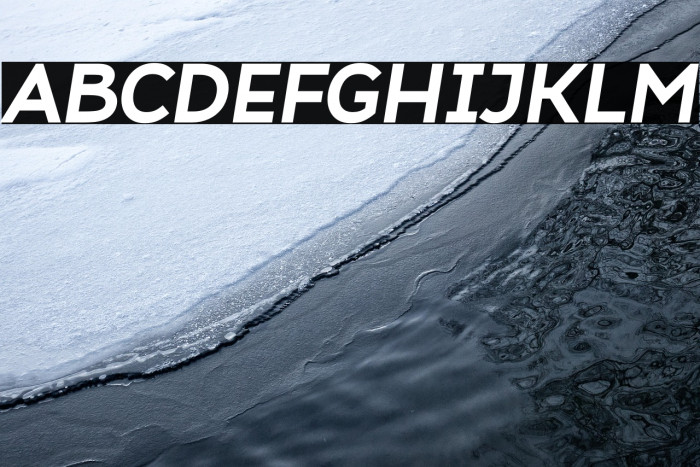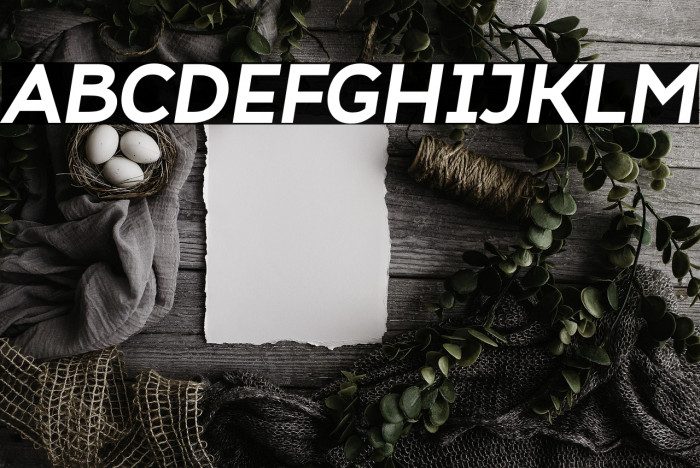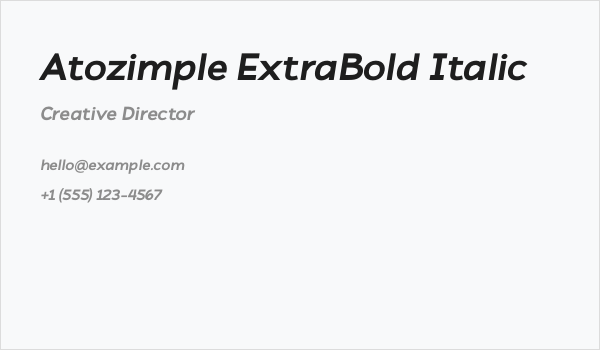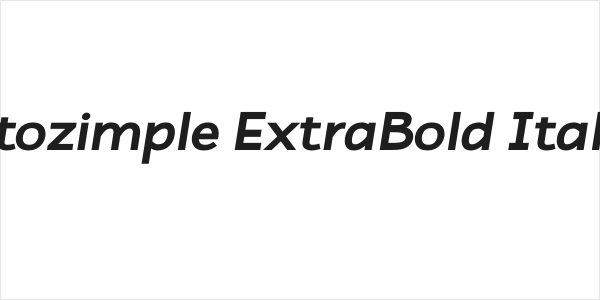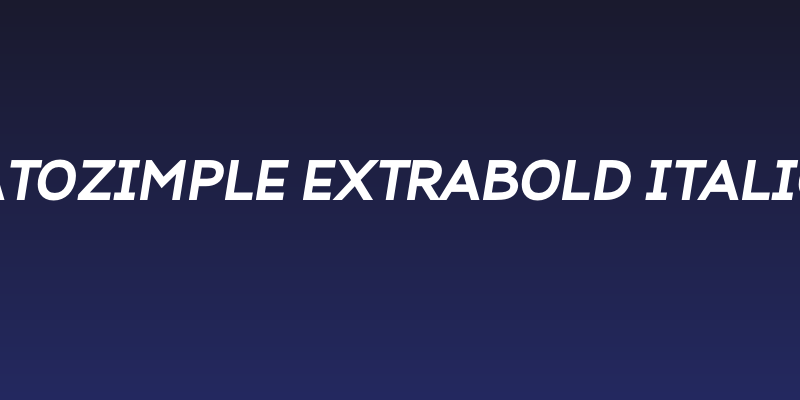
Atozimple ExtraBold Italic Font
Atozimple ExtraBold Italic Description
This font features a bold and dynamic style with a pronounced italic slant, giving it a sense of movement and energy. The characters are well-defined with a consistent stroke weight, making them highly legible. The uppercase and lowercase letters maintain a uniform appearance, while the numerals are clear and easily distinguishable. Special characters are included, enhancing its versatility. The font's design is modern and sleek, suitable for a variety of applications where impact and readability are essential.
| Use Case | Headlines, Logos, Advertising |
| Proposed Projects | Ideal for branding, advertising, headlines, and digital media projects where a strong and contemporary look is desired. |